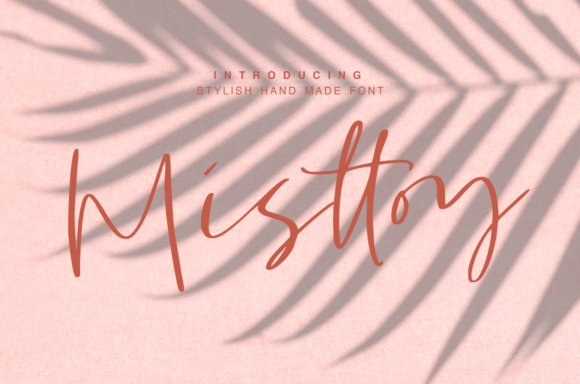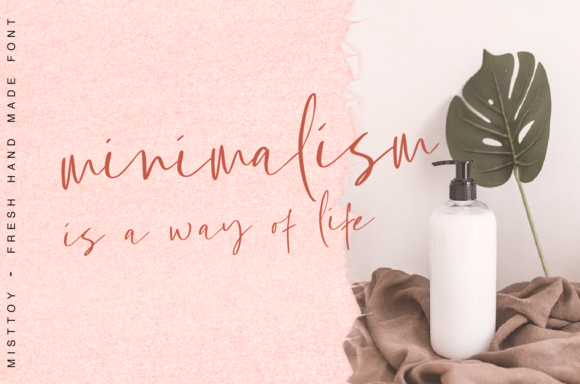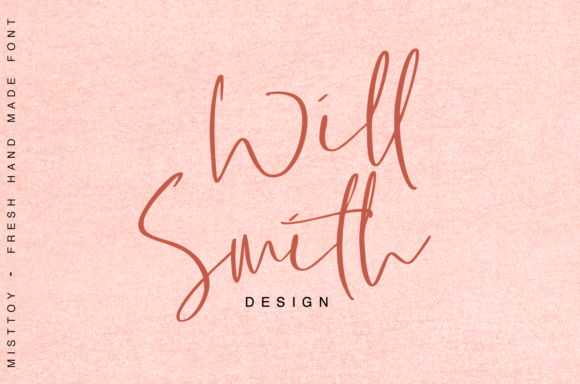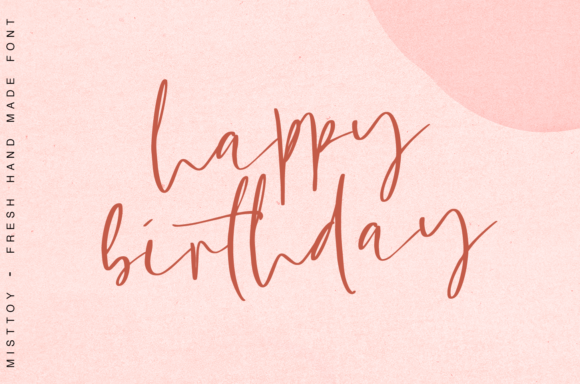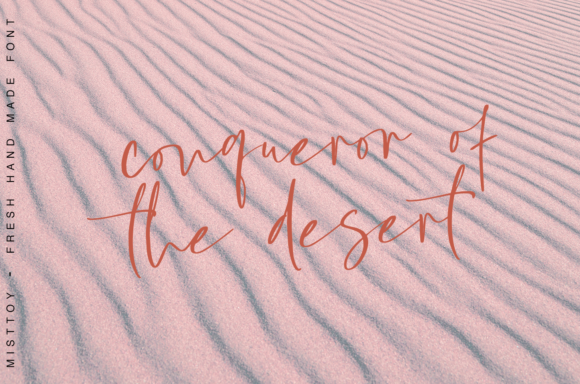
Misttoy Font
About Misttoy Font
Misttoy is a delicate and elegant handwritten font. Its distinct and well rounded letters make this font a masterpiece. Fall in love with its incredibly versatile style and use it to create spectacular designs!